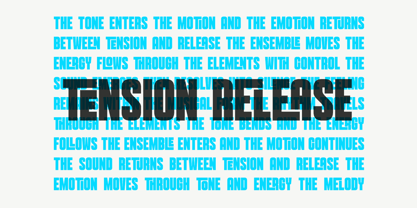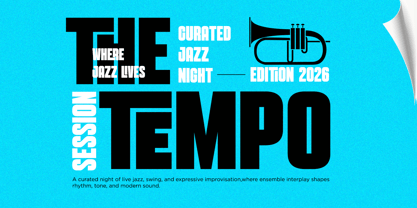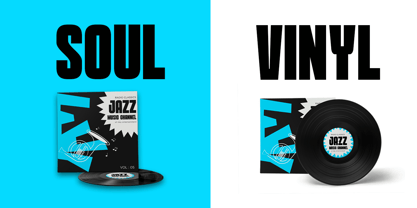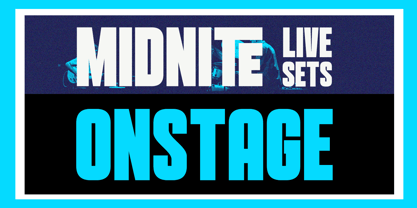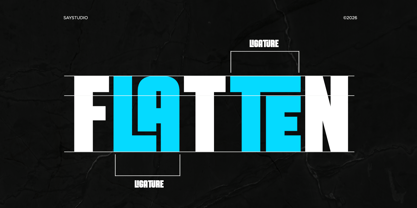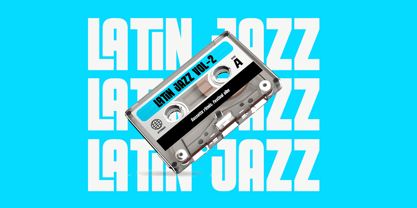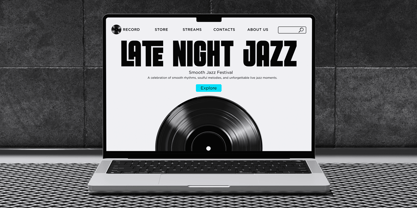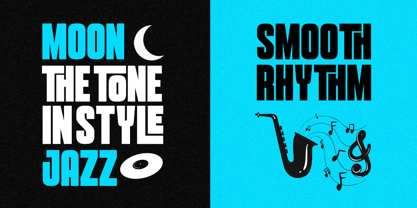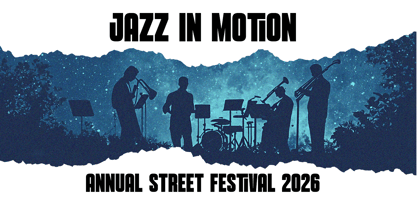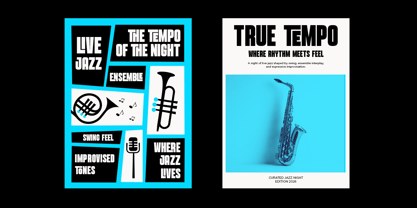
Bolaro
by Say Studio
BOLARO is a bold condensed display font crafted to deliver strong visual impact, sharp character, and modern confidence. Inspired by contemporary editorial design and urban typography, this typeface is built to stand out, offering powerful vertical proportions, clean geometry, and striking readability that commands attention across digital and print media. Designed for branding designers, creative studios, content creators, and marketing professionals, BOLARO provides a versatile typographic solution for impactful visual communication. From logo design, posters, packaging, and advertising to social media content, headlines, web banners, editorial layouts, and promotional campaigns, this font elevates every project with bold presence, dynamic rhythm, and strong personality. With carefully constructed letterforms, stylish ligatures, and balanced spacing, BOLARO ensures professional results across a wide range of creative needs. Whether you're building a strong brand identity, crafting modern marketing visuals, or creating high-impact display typography, BOLARO delivers clarity, style, and authority in every letter. What's inside? - Bolaro Regular - Bolaro Italic - Uppercase and Lowercase - Ligatures pack - Symbol, Number and Multilingual Support Thank You, Happy Creating! Saystudio